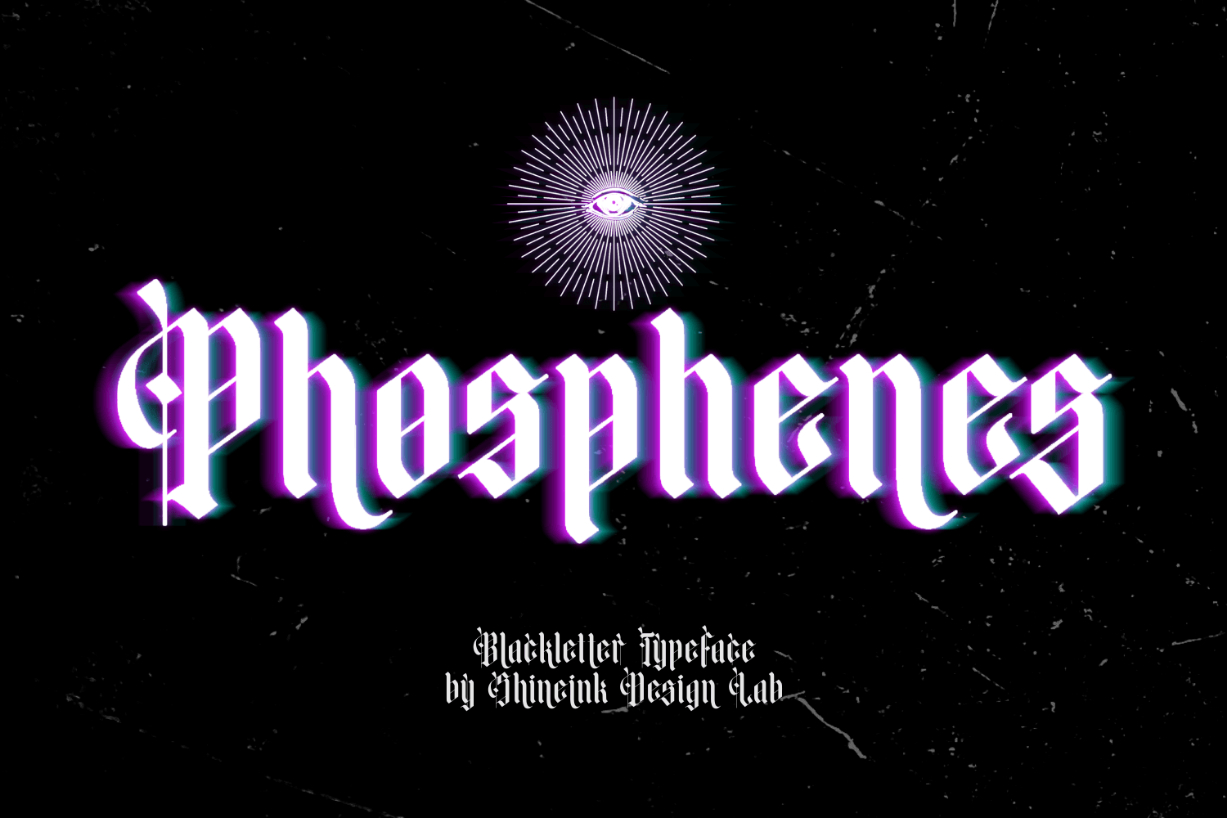
About Phosphenes Font
“Phosphenes” is an impressive blackletter font featuring original vintage-looking characters and a cool vibe. Use it to create something truly spectacular!